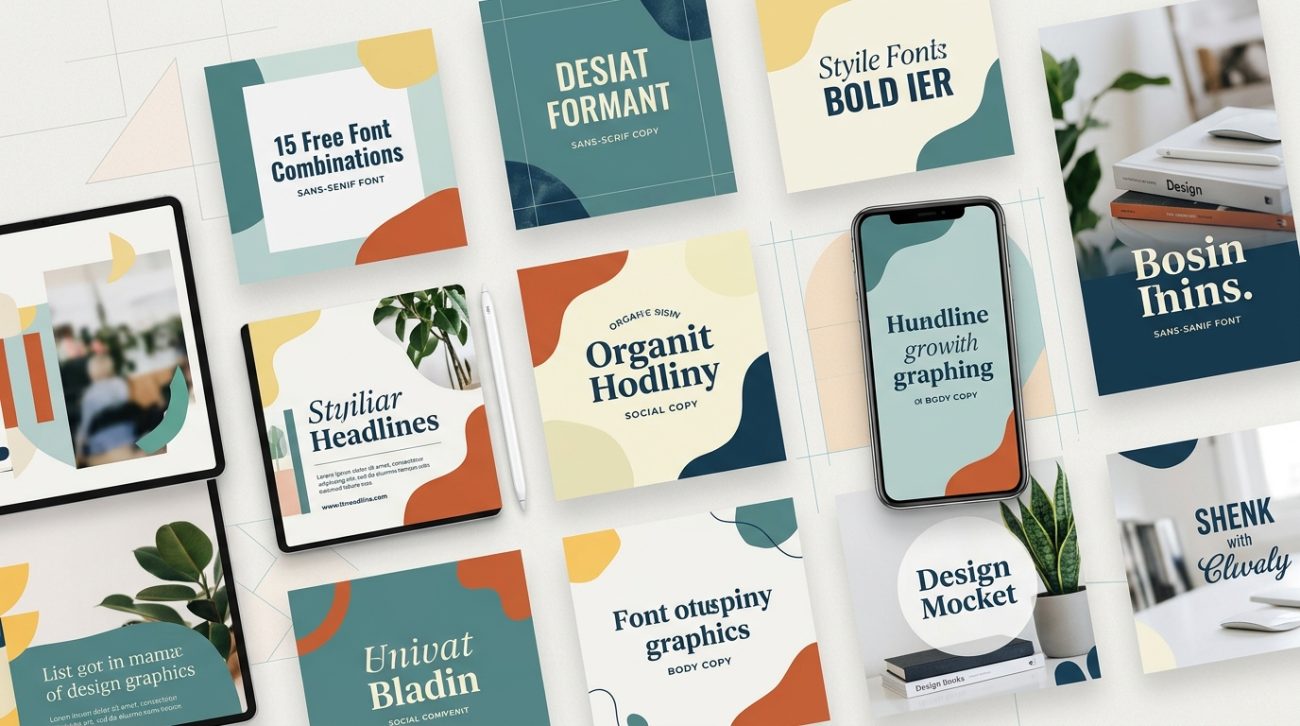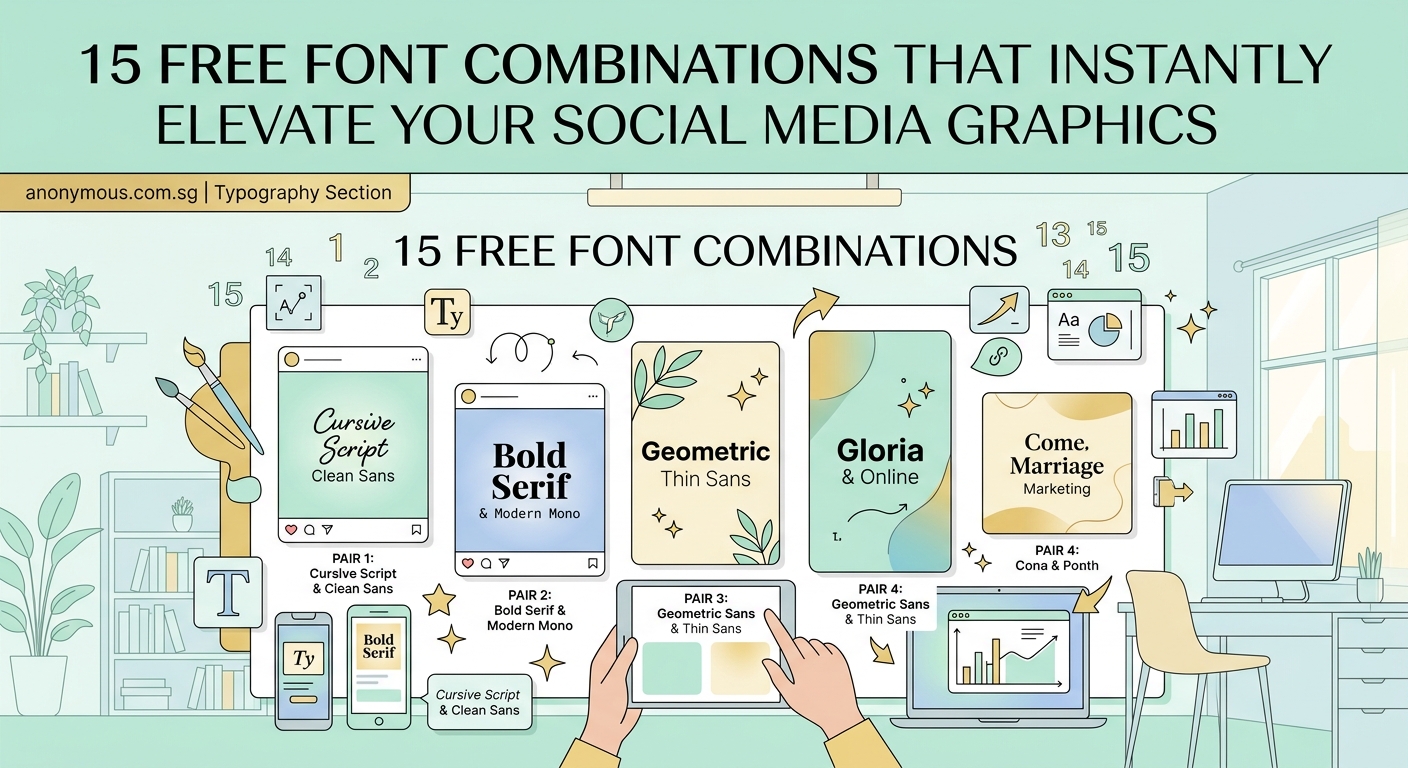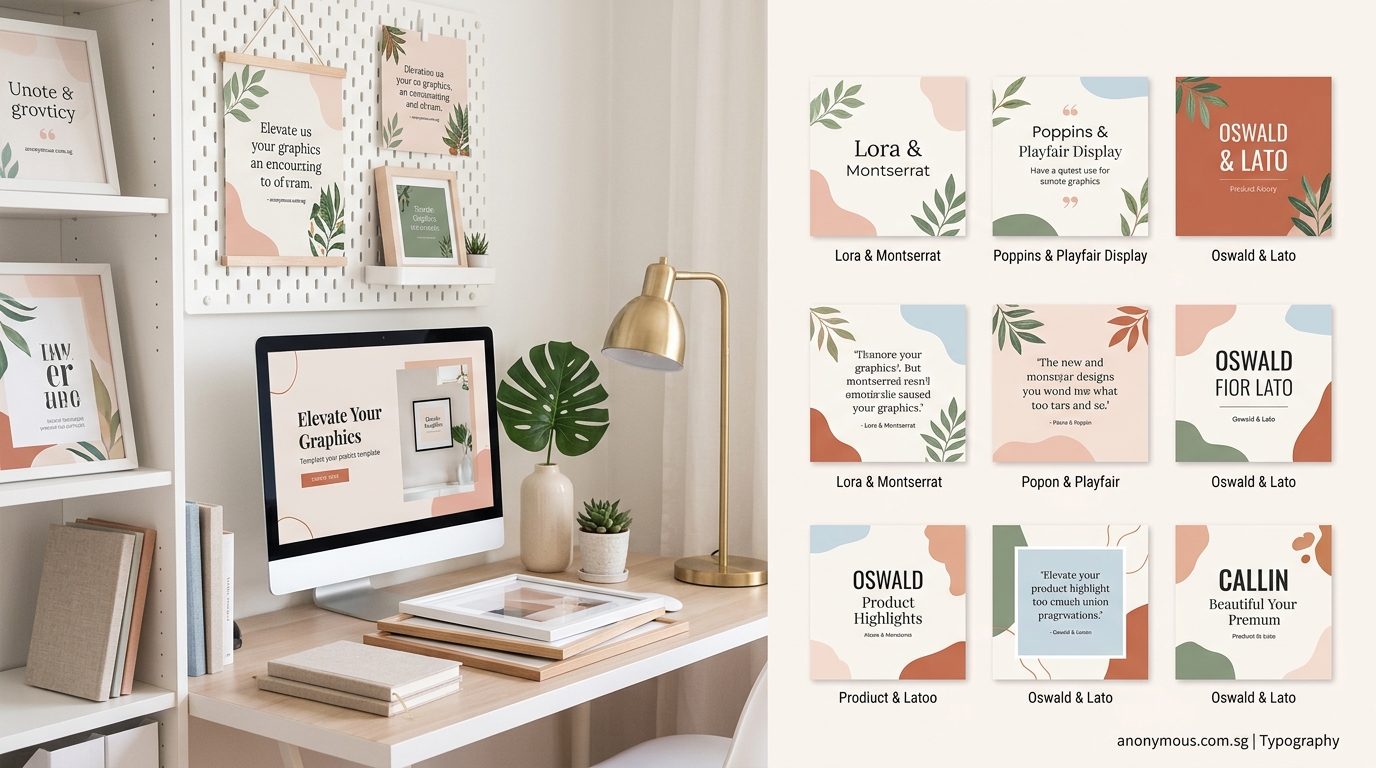
15 Free Font Combinations That Instantly Elevate Your Social Media Graphics
Choosing the right font combinations can feel overwhelming when you’re staring at hundreds of typefaces. You know your social media graphics need better typography, but pairing fonts that actually work together is harder than it looks. Most small business owners and social media managers end up using the same safe combinations over and over, or worse, mixing fonts that clash and make their brand look amateur.
Key Takeaway
Font combinations work best when you pair contrasting styles with complementary personalities. This guide teaches you the foundational rules for pairing fonts, shows you where to find free combinations that already work, and gives you a simple framework for testing your choices. You’ll learn to spot bad pairings before they damage your brand and build a small library of go-to combinations you can reuse across all your visual content.
Why most font pairings fail before you even start
Bad font combinations usually fail for one of three reasons.
First, the fonts are too similar. When you pair two sans-serif fonts that have nearly identical weights and proportions, they look like a mistake instead of an intentional choice. Your audience can’t tell if you meant to use two different fonts or if you accidentally mixed them up.
Second, the fonts fight for attention. Pairing two decorative display fonts creates visual chaos. Neither font gets to shine, and your message gets lost in the noise.
Third, the fonts have clashing personalities. A playful rounded font paired with a serious serif creates cognitive dissonance. Your brand message becomes unclear because the typography sends mixed signals.
Understanding these failure modes helps you avoid them from the start.
The three-rule system for pairing fonts successfully
Professional designers rely on a simple framework when combining fonts.
Rule 1: Create contrast through classification
Pair fonts from different categories. The most reliable combinations match a serif with a sans-serif, or pair a display font with a neutral sans-serif. This creates clear visual hierarchy and makes each font’s role obvious.
Rule 2: Match the mood and era
Both fonts should support the same emotional tone. A geometric sans-serif from the Bauhaus era pairs beautifully with a modern slab serif, but clashes with an ornate Victorian script. Think about the historical period and cultural associations each font carries.
Rule 3: Limit your palette
Stick to two or three fonts maximum. One font for headlines, one for body text, and optionally one accent font for special elements. More than three fonts makes your design look chaotic and unprofessional.
These rules work across every design project, from social media graphics to full brand systems.
How to test if your font pairing actually works
Before committing to a font combination, run these practical tests.
1. Set them side by side at different sizes. Type your headline in the display font and body text in your secondary font. Look at them together at actual usage sizes, not just at 72pt.
2. Check the x-height relationship. The x-height is the height of lowercase letters like “x” or “a”. Fonts with drastically different x-heights can look mismatched even if they’re from complementary categories.
3. Test with real content. Don’t just type “The quick brown fox.” Use actual headlines and paragraphs from your business. You’ll spot problems faster with realistic content.
4. View it on multiple devices. What looks great on your desktop monitor might fail on a phone screen. Test your combinations at mobile sizes before finalizing them.
5. Show it to someone outside your business. Fresh eyes catch problems you’ve become blind to. Ask them what mood the fonts convey and whether the text is easy to read.
If your pairing passes all five tests, you’ve found a winner.
Where to find pre-made font combinations that already work
15 Free Font Combinations That Instantly Elevate Your Social Media Graphics - Illustration 2
You don’t have to start from scratch. These resources offer tested combinations you can use immediately.
Google Fonts provides a “Popular Pairings” section for each font. When you select any typeface, scroll down to see which fonts other designers commonly pair with it. These combinations have been battle-tested across millions of websites.
FontJoy uses machine learning to generate font pairings. Adjust the contrast slider to control how different the fonts look from each other. Lock any font you like and generate new options for the others.
Fontpair showcases Google Font combinations with live examples. Each pairing includes a preview showing headlines, subheadings, and body text together. You can copy the font names directly into your design tool.
Pick one pairing today. Test it on your next social media post or email newsletter. Notice how much clearer your message becomes when your typography supports it instead of fighting it.